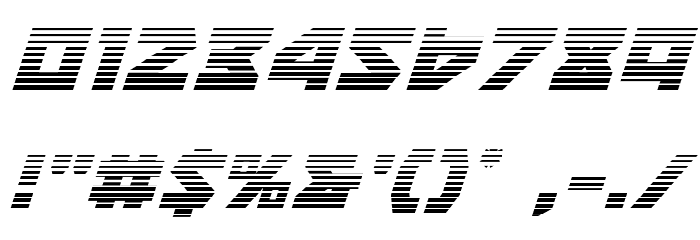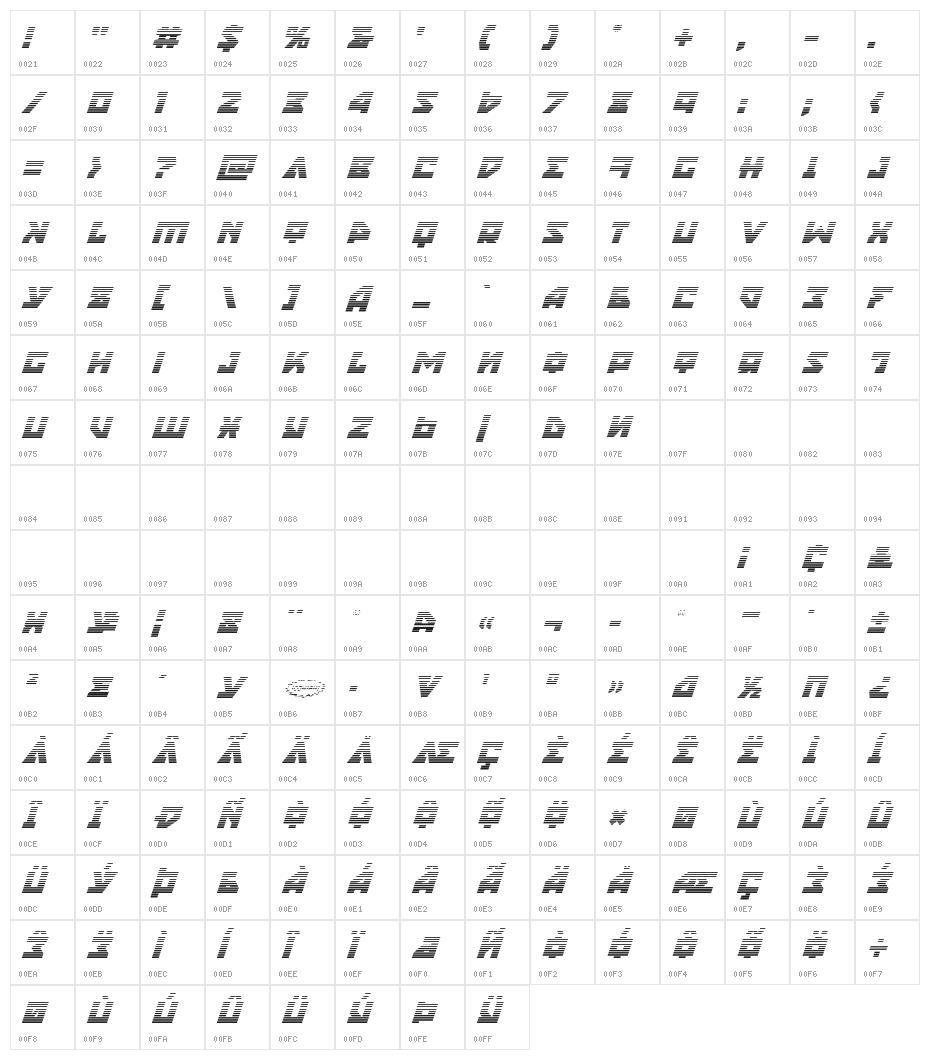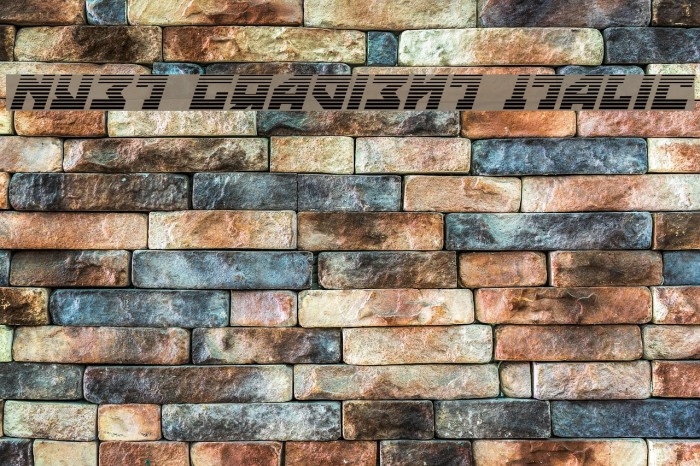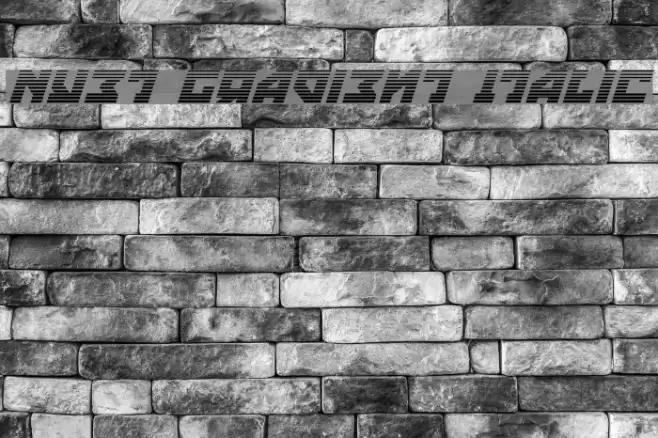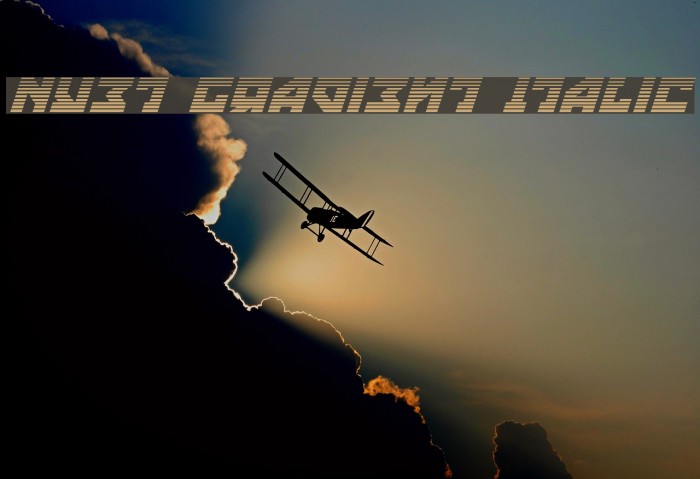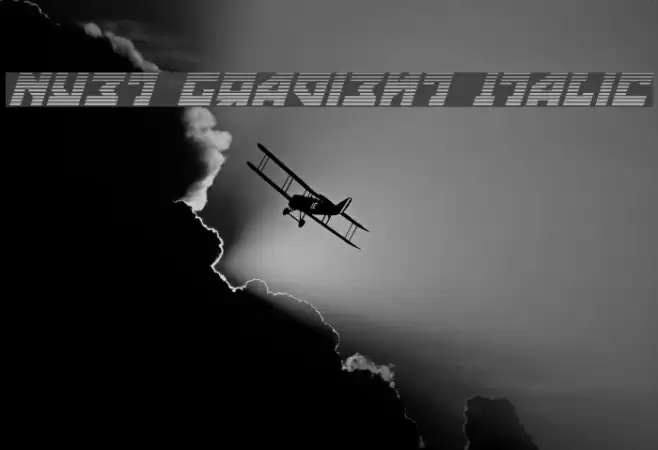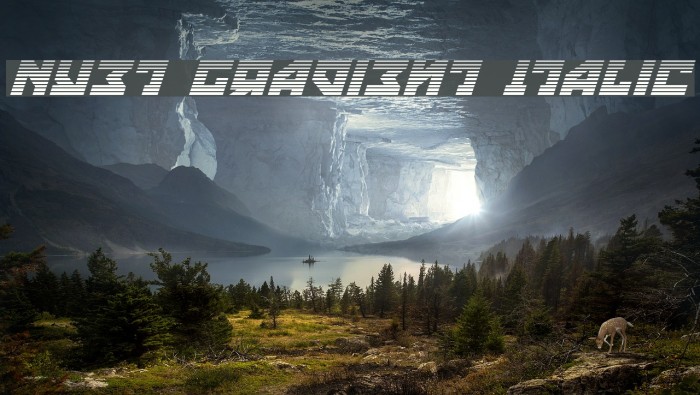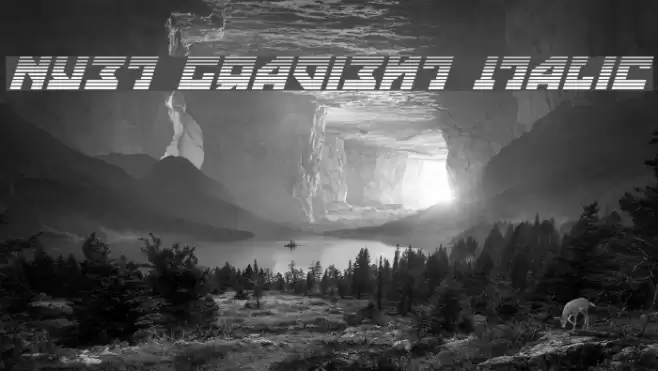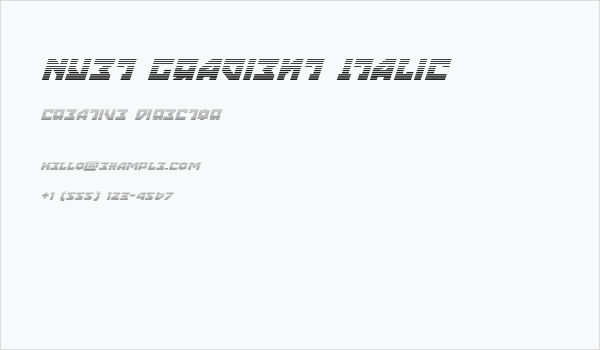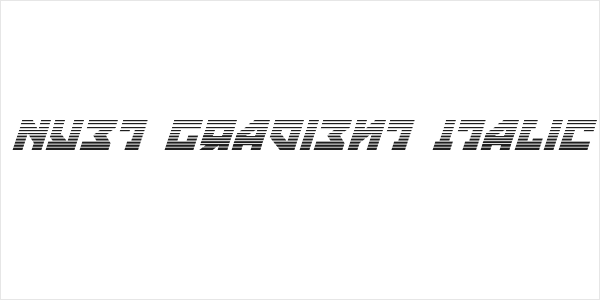
Nyet Gradient Italic Font
Nyet Gradient Italic Description
This font features a bold and dynamic design with a distinct italic slant, characterized by horizontal lines that create a gradient effect across each character. The uppercase and lowercase letters, as well as numbers and special characters, maintain a consistent style that emphasizes movement and speed. The unique line pattern gives it a futuristic and edgy appearance, making it stand out in any design. The font's structure is geometric, with sharp angles and clean lines, adding to its modern and innovative feel.
Overall StyleFuturistic, Dynamic, Edgy
Proposed ProjectsIdeal for projects that require a modern and edgy look, such as technology branding, sports team logos, or futuristic event posters.